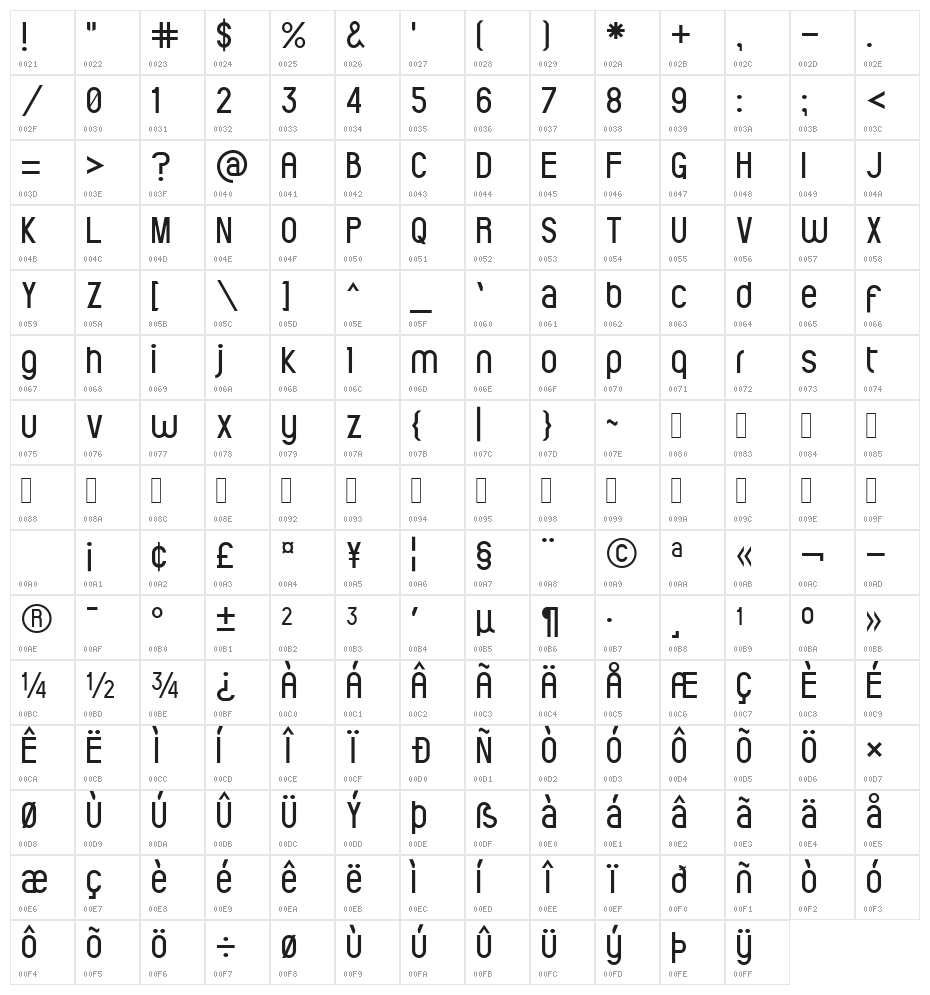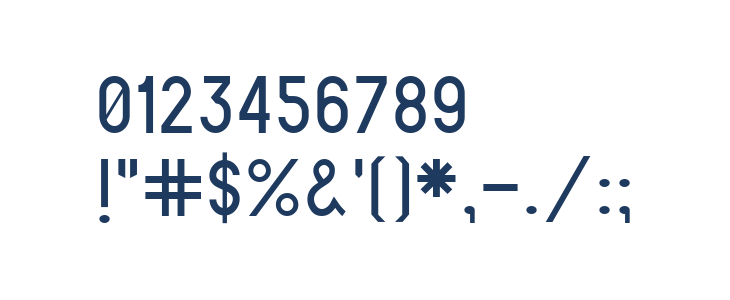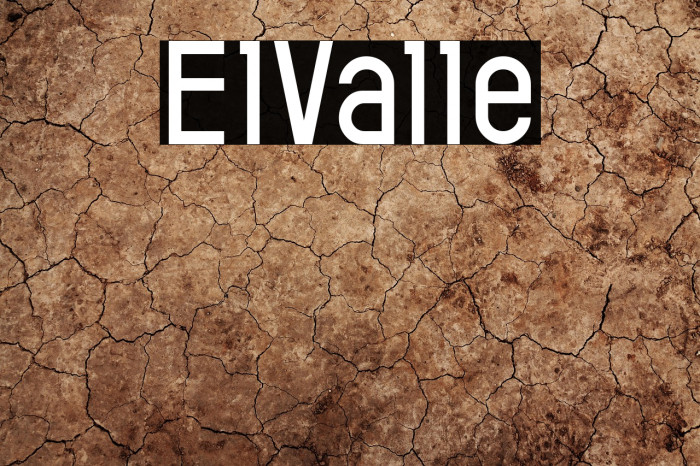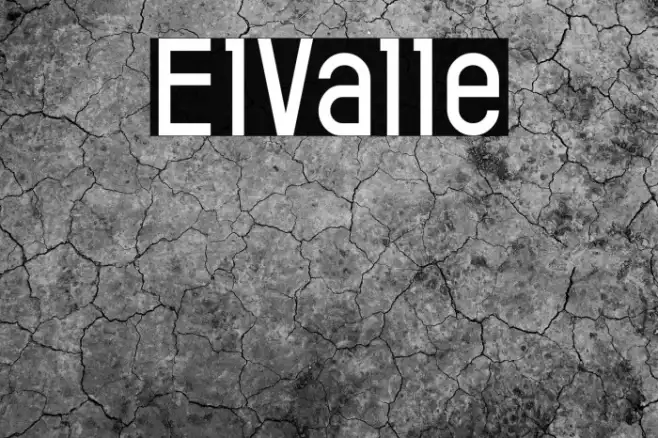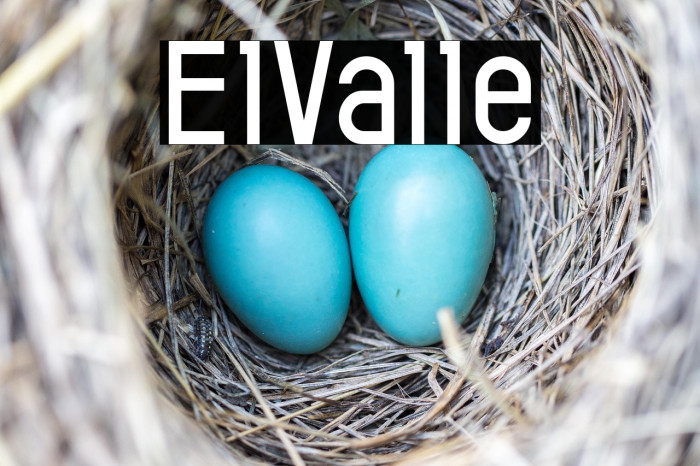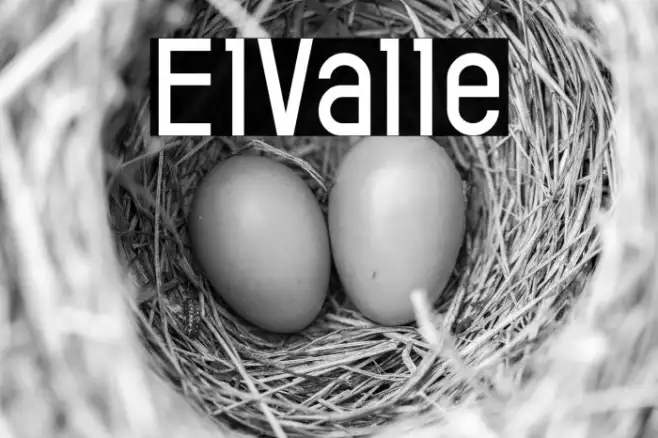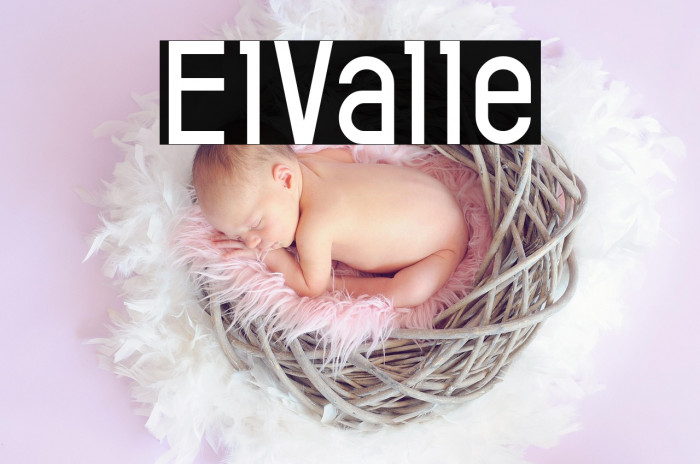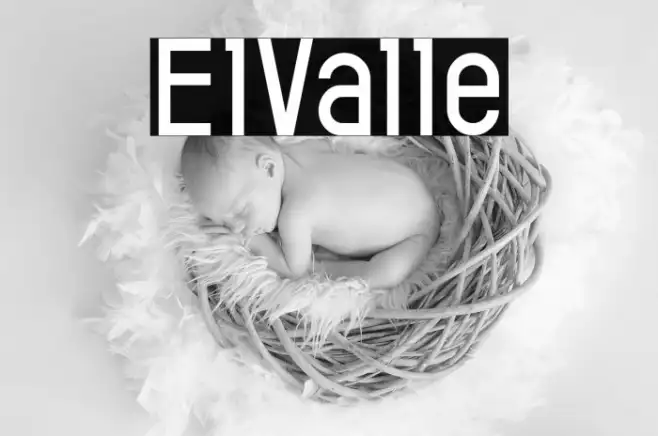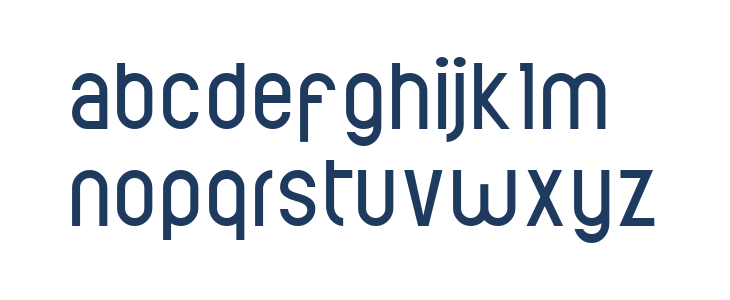
ElValle Font
ElValle Description
This font features a clean and modern sans-serif design with uniform stroke widths, creating a balanced and harmonious appearance. The characters are slightly rounded at the edges, giving a friendly and approachable feel while maintaining a professional look. The uppercase letters are bold and impactful, while the lowercase letters are more subtle, providing a nice contrast. The numerals are clear and easy to read, making them suitable for various applications. Special characters are well-defined, ensuring versatility in usage. Overall, this font is versatile and can be used in a wide range of design projects.
| Proposed Projects | Ideal for branding, advertising, web design, and editorial projects. |